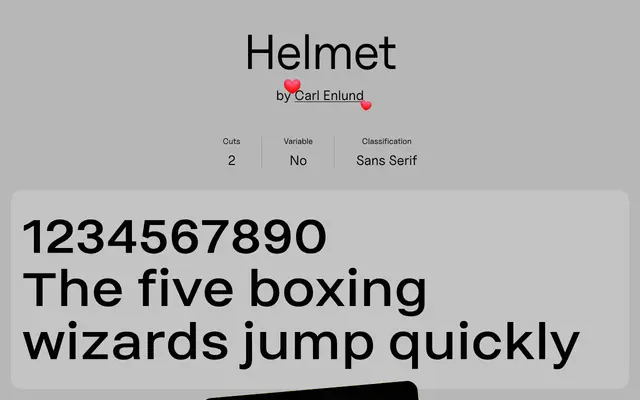
Helmet
Uncut · Carl Enlund
Helmet is a sans-serif typeface by Carl Enlund offered in two cuts via Uncut. Released under the SIL Open Font License 1.1, it is free for both commercial and personal use, with allowances for modification and redistribution under the licence terms. The page provides minimal detail beyond its two-cut structure and open licensing.
Listed under Sans Serif by the foundry with no further subdivision; the name and minimal description suggest a straightforward grotesque cut.